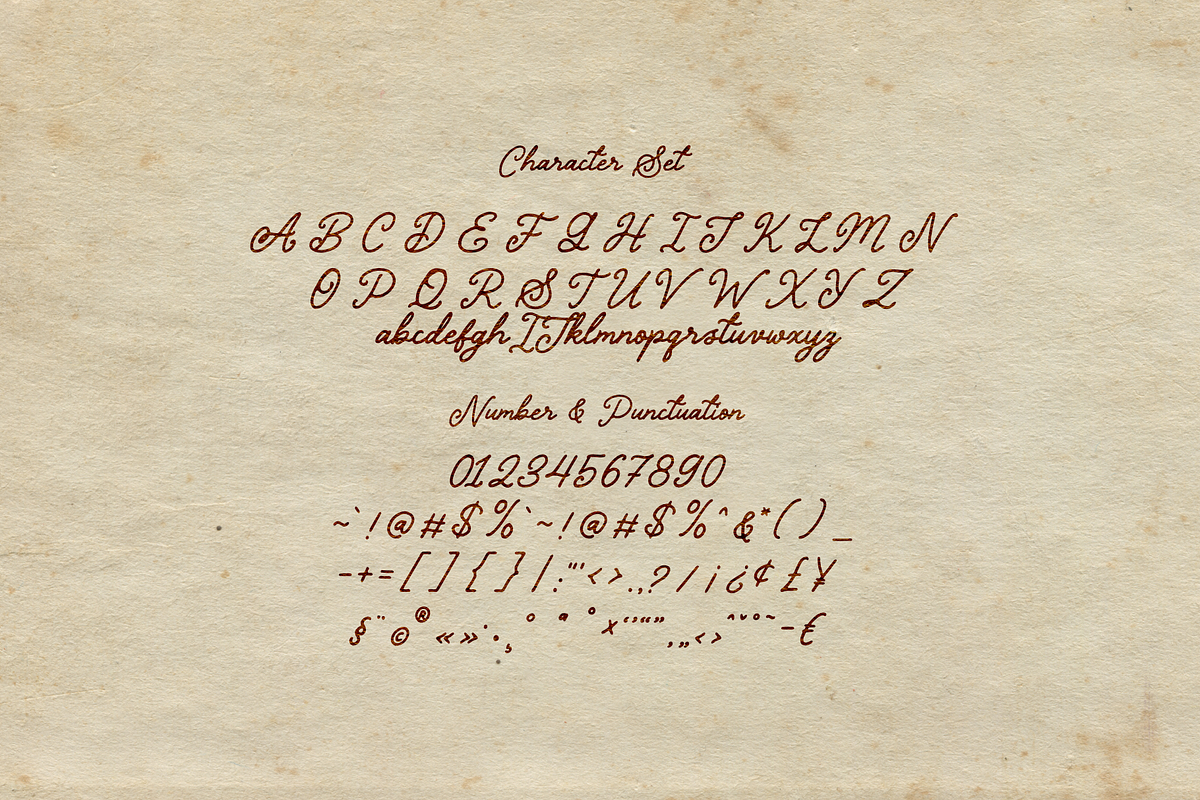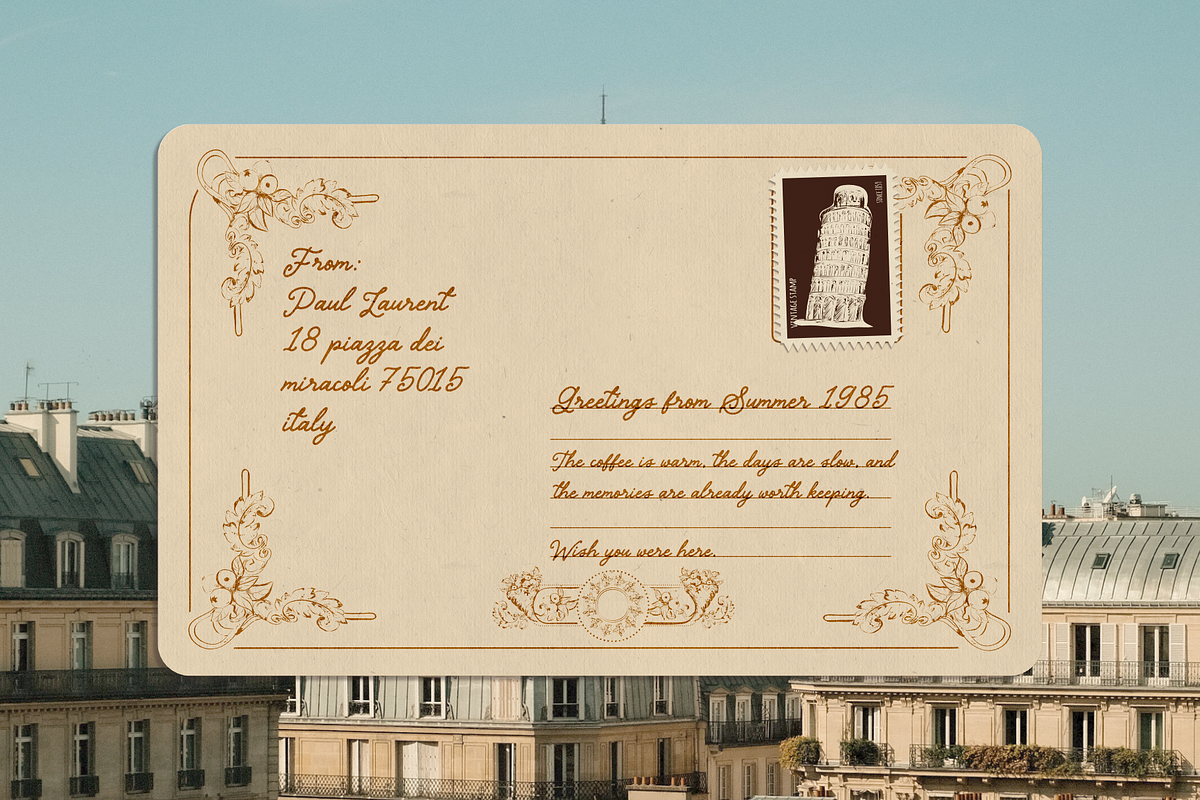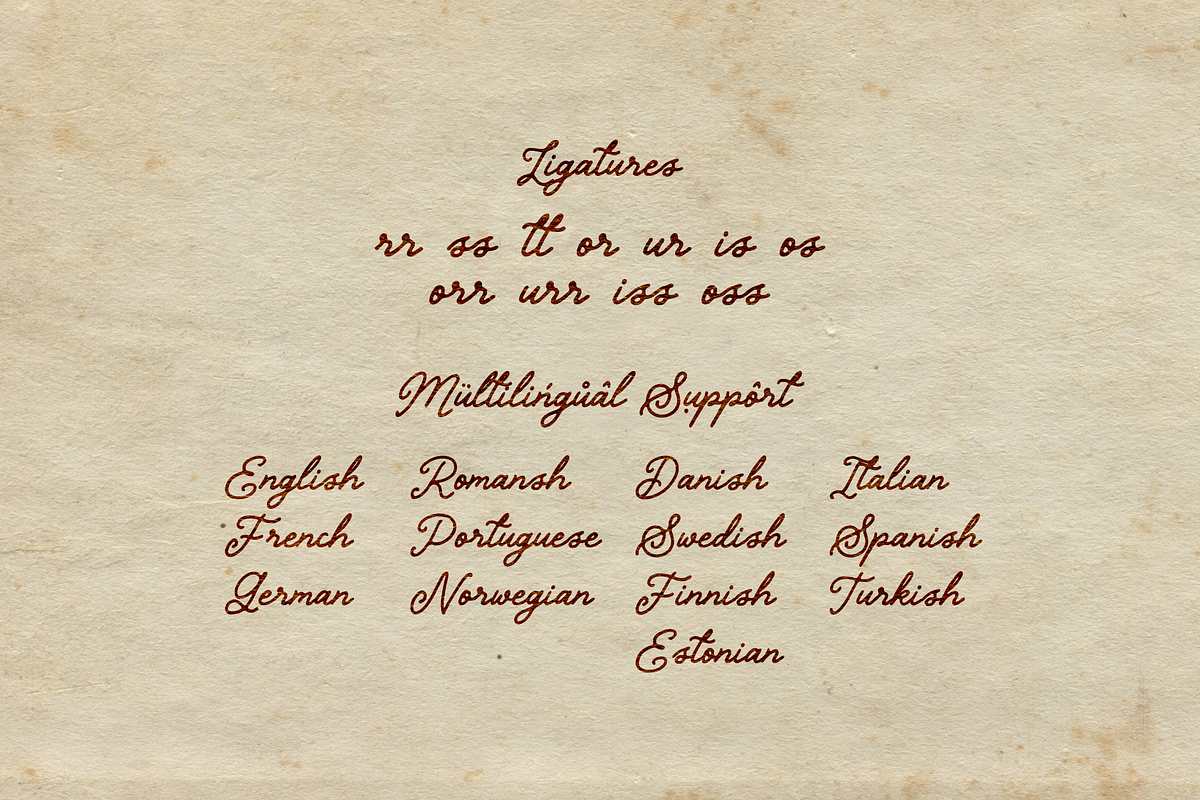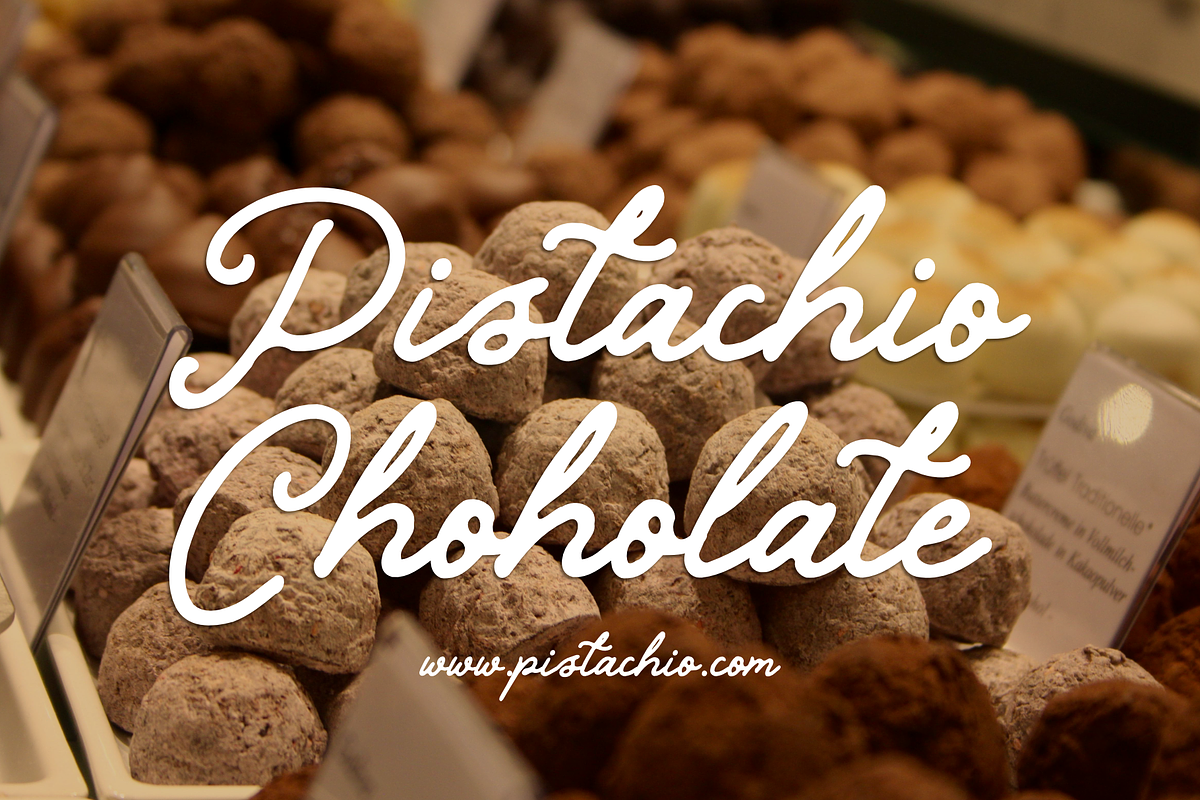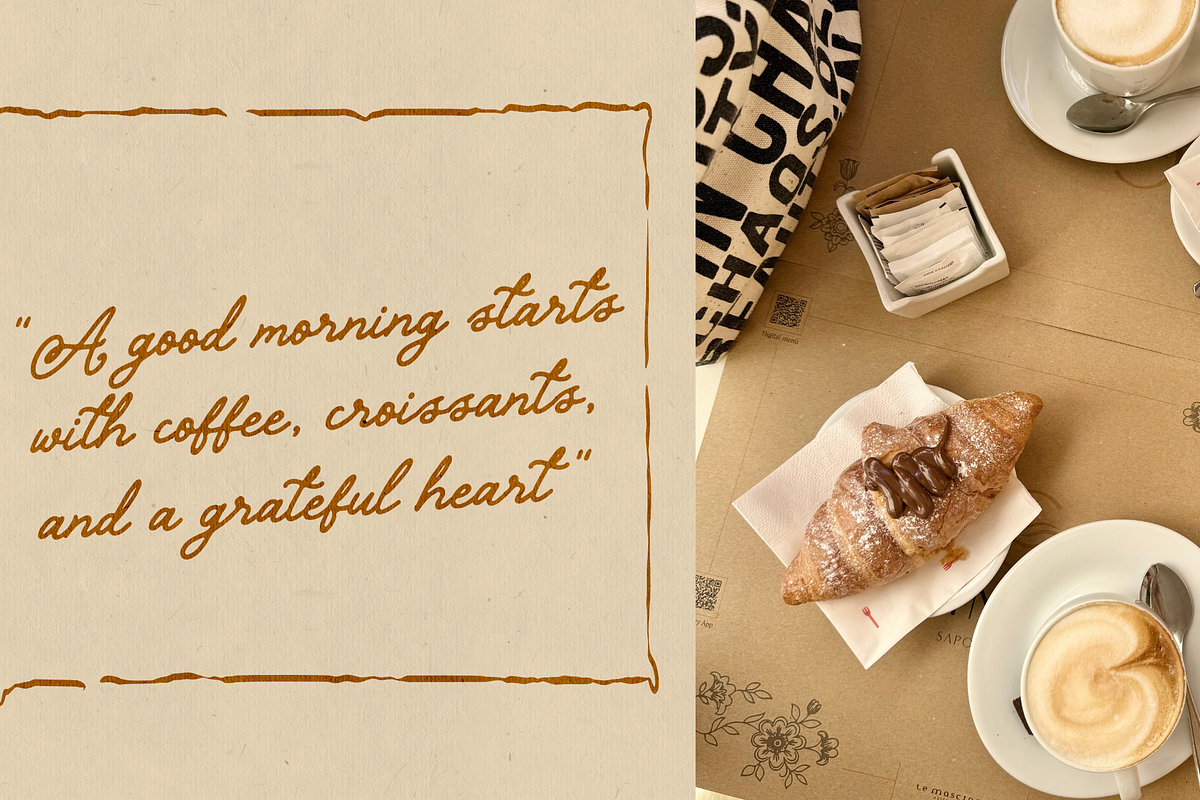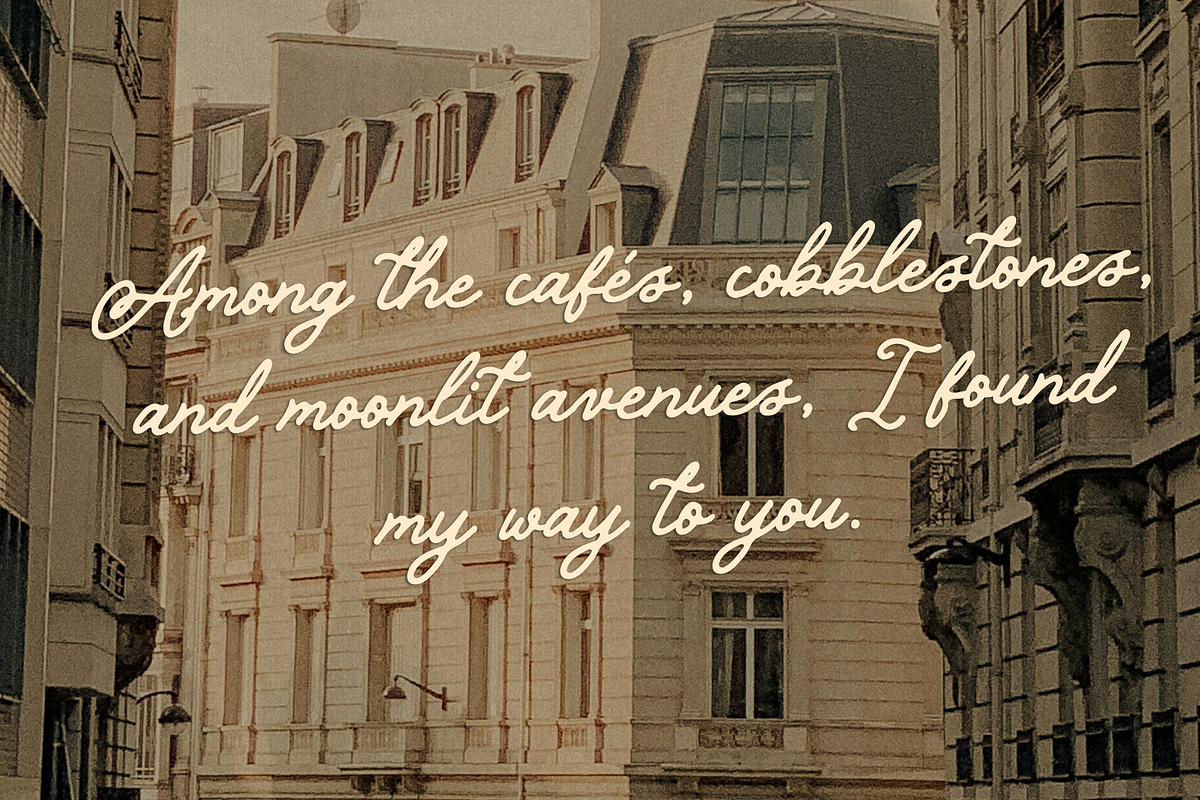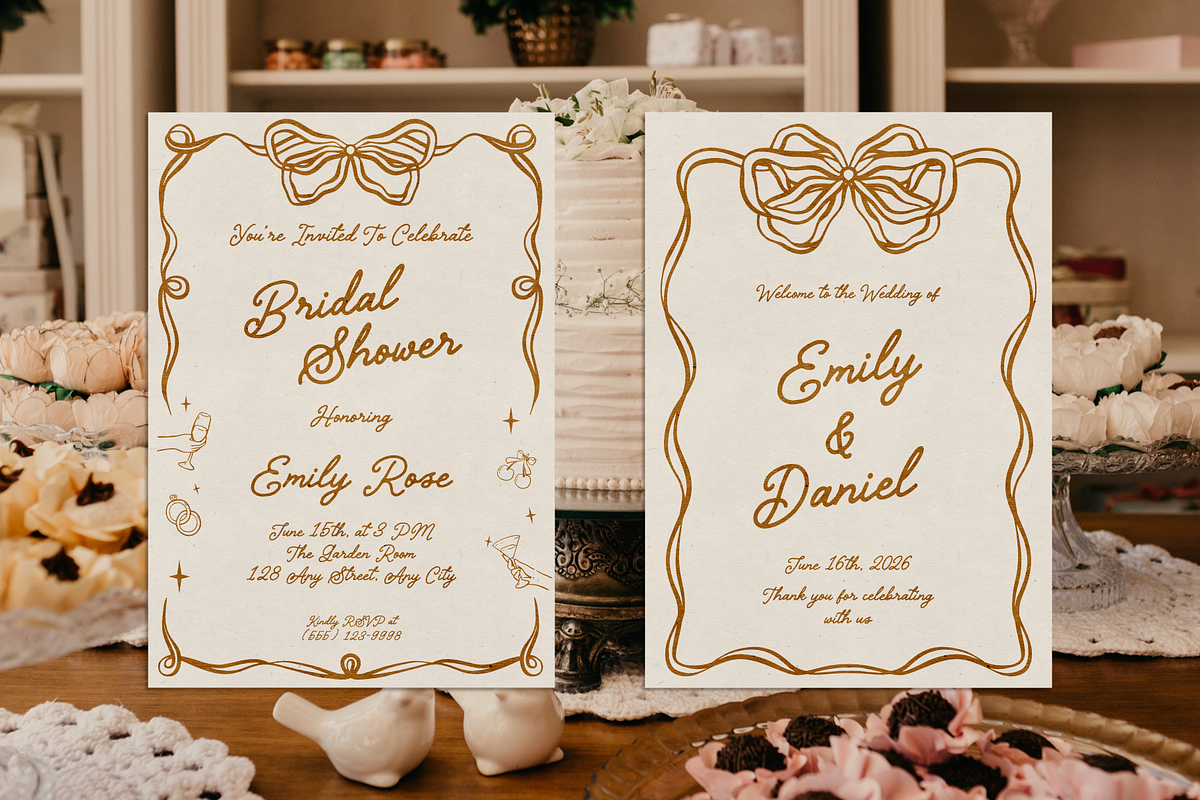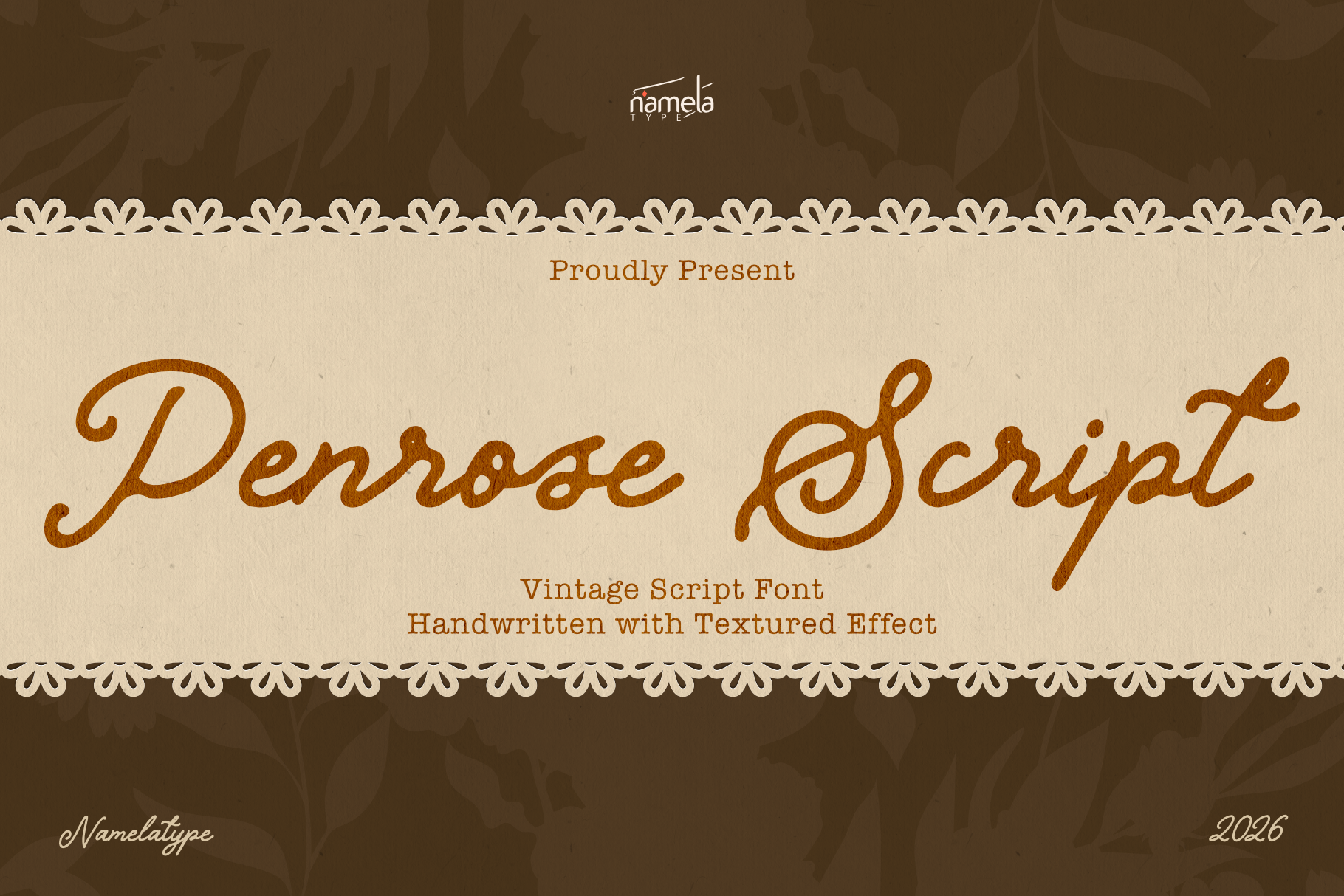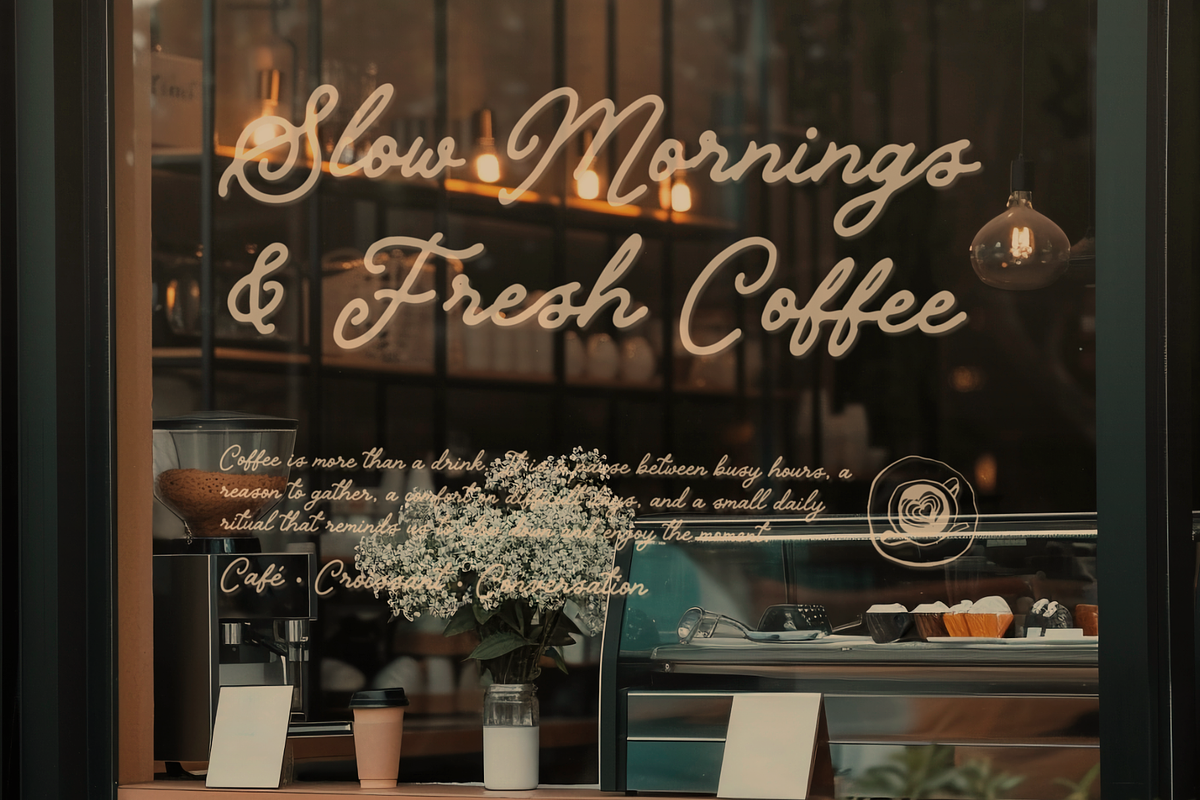
Penrose Script - Handwritten Font
Penrose Script – Vintage Handwritten Typeface for Timeless Branding
Penrose Script is a vintage handwritten script font that beautifully combines classic elegance with an authentic handcrafted feel. Inspired by old postcards, traditional café signage, handwritten letters, and timeless European aesthetics, this typeface brings warmth, nostalgia, and personality into every design. Its flowing letterforms and subtly textured appearance create the impression of genuine penmanship, making every word feel personal, charming, and memorable.
Designed to evoke emotional connection and authenticity, Penrose Script captures the essence of vintage handwriting while maintaining excellent readability. It offers a refined yet approachable personality that works beautifully across branding, hospitality, editorial, packaging, and lifestyle design.
Penrose Script is distinguished by graceful handwritten glyphs, flowing strokes, elegant ascenders, expressive terminals, and naturally connected characters. Its handwritten rhythm creates typography that feels effortless, refined, and authentic.
A subtle vintage texture enhances the nostalgic personality of the typeface, recreating the appearance of ink pressed gently onto aged paper. This handcrafted quality adds depth and visual richness while maintaining a clean and professional presentation.
Beautifully crafted ligatures improve character connections, allowing words to flow naturally and appear more realistic. The result is typography that feels organic, expressive, and emotionally engaging.
Advanced OpenType Features
Access All Alternates (aalt)
Glyph Composition (ccmp)
Discretionary Ligatures (dlig)
Denominator (dnom)
Fractions (frac)
Localized Forms (locl)
Numerator (numr)
Ordinals (ordn)
Scientific Inferiors (sinf)
Subscript (subs)
Superscript (sups)
Kerning (kern)
Mark Positioning (mark)
Mark-to-Mark Positioning (mkmk)